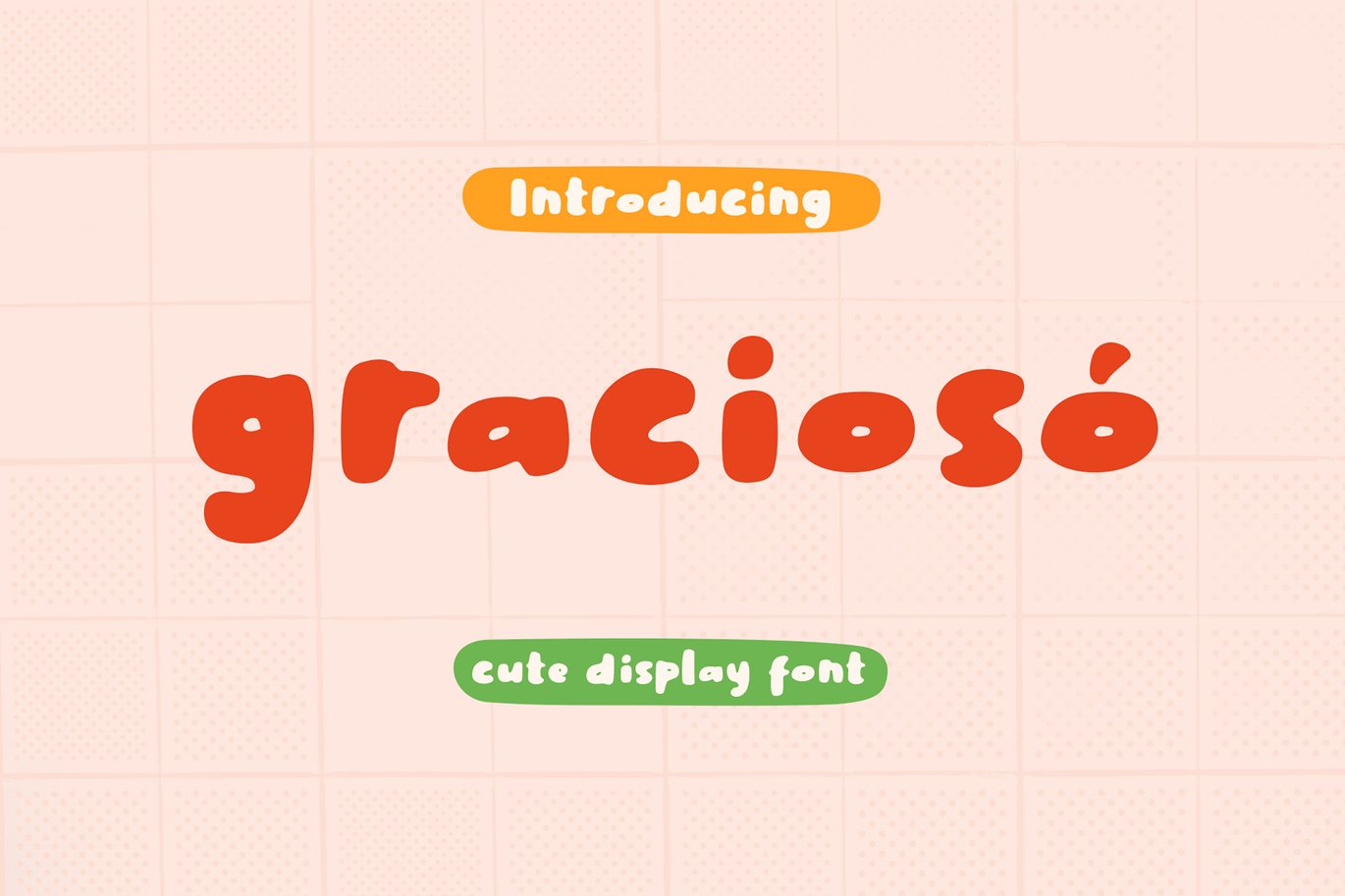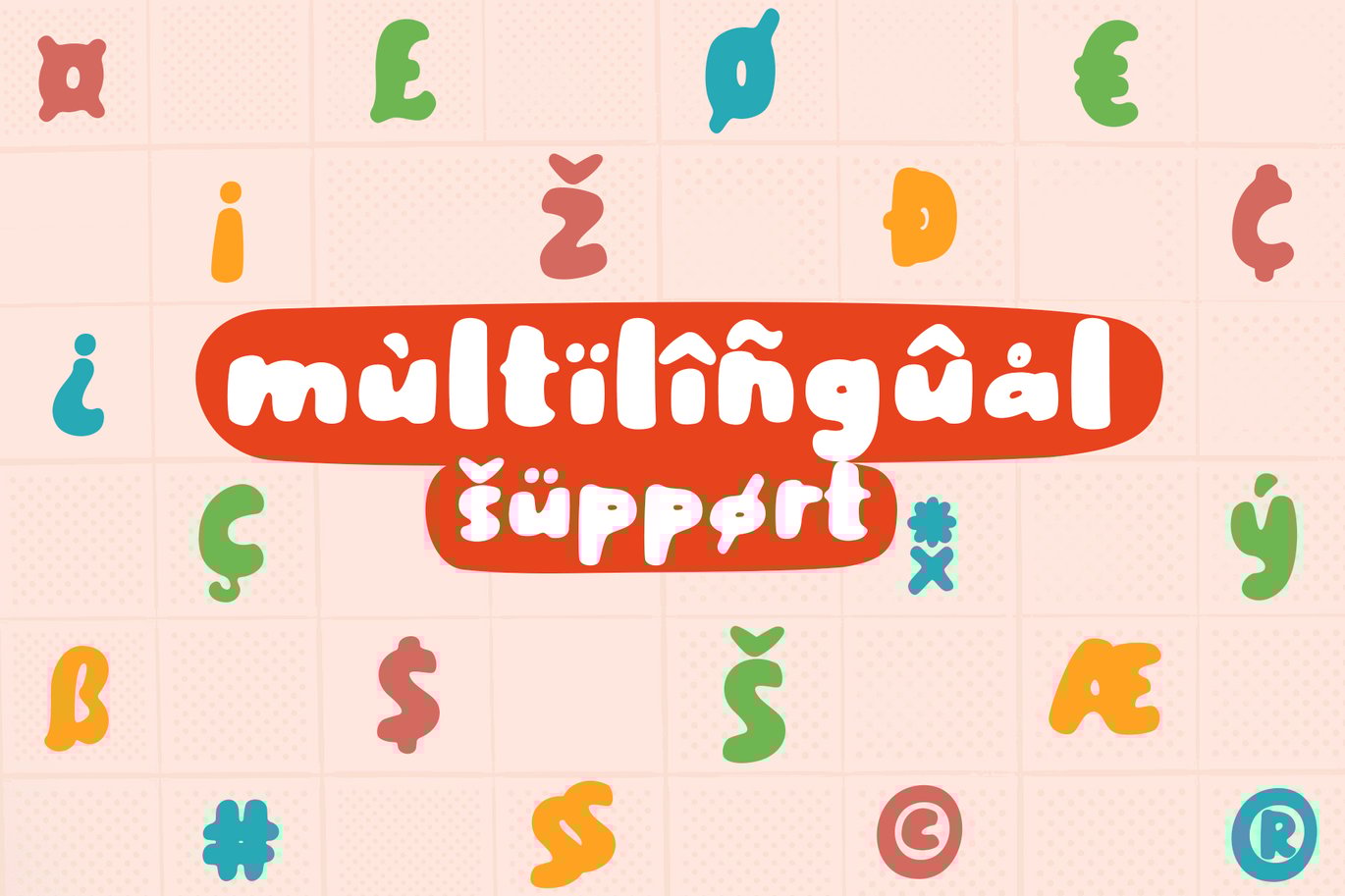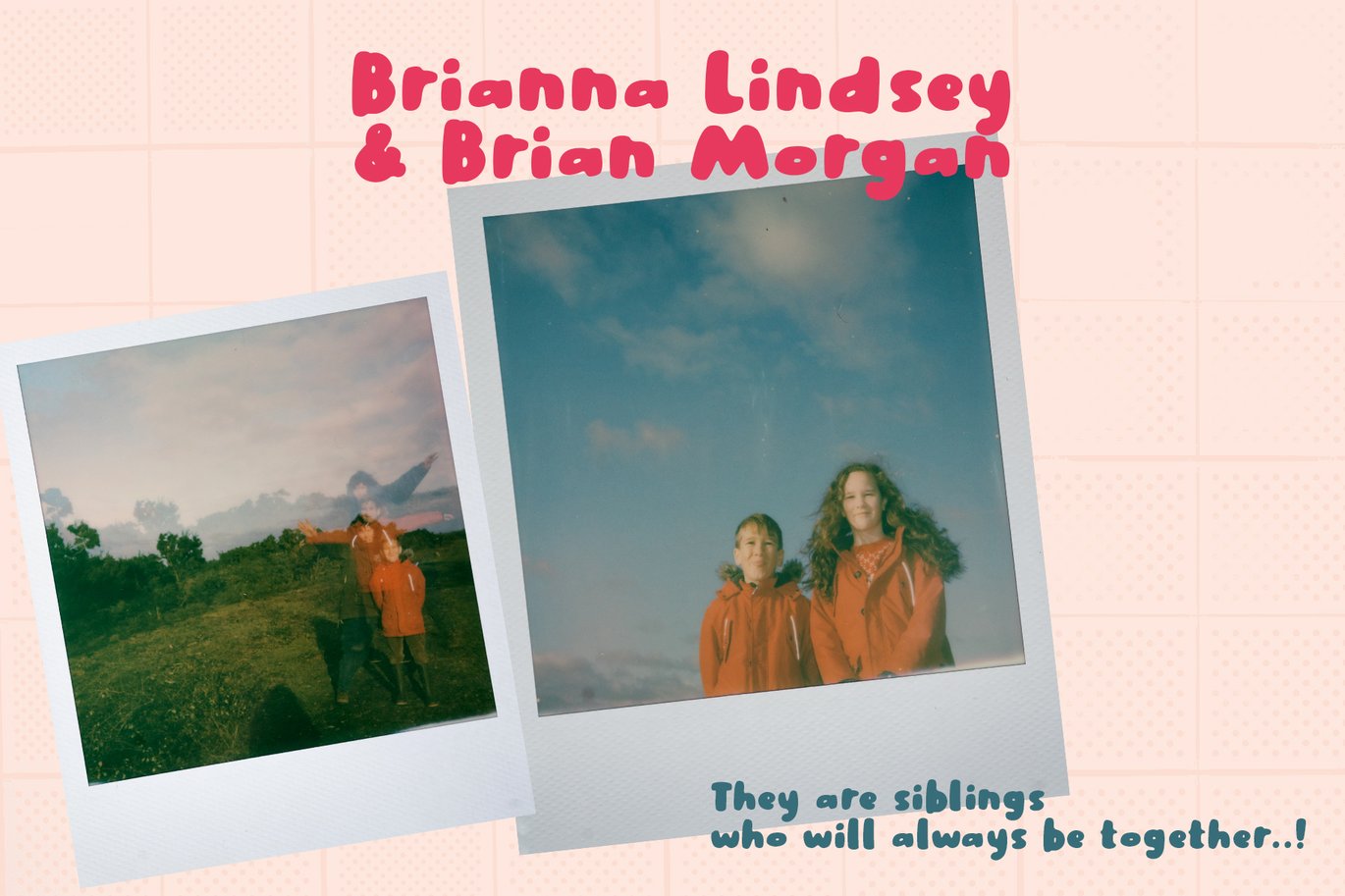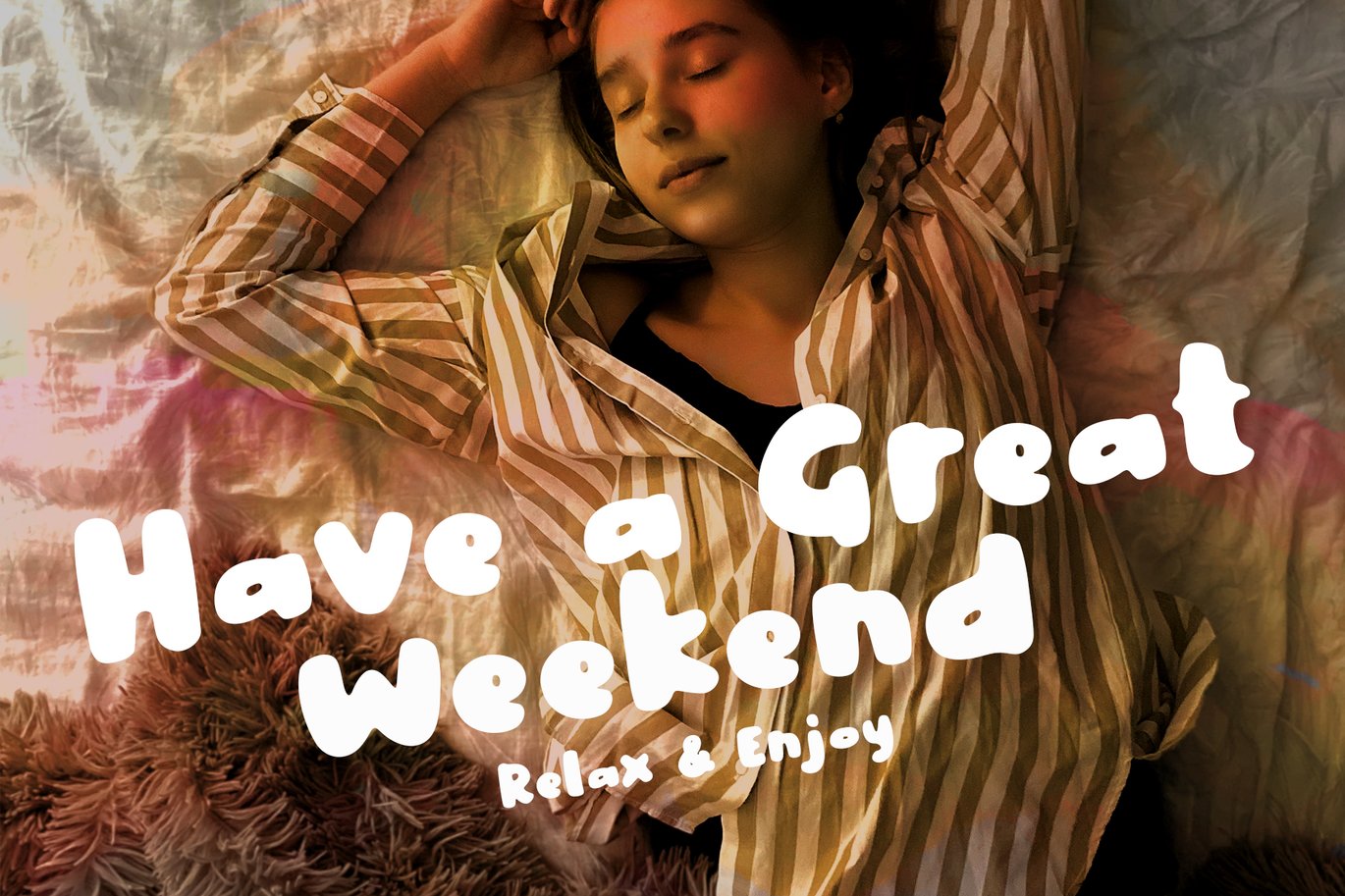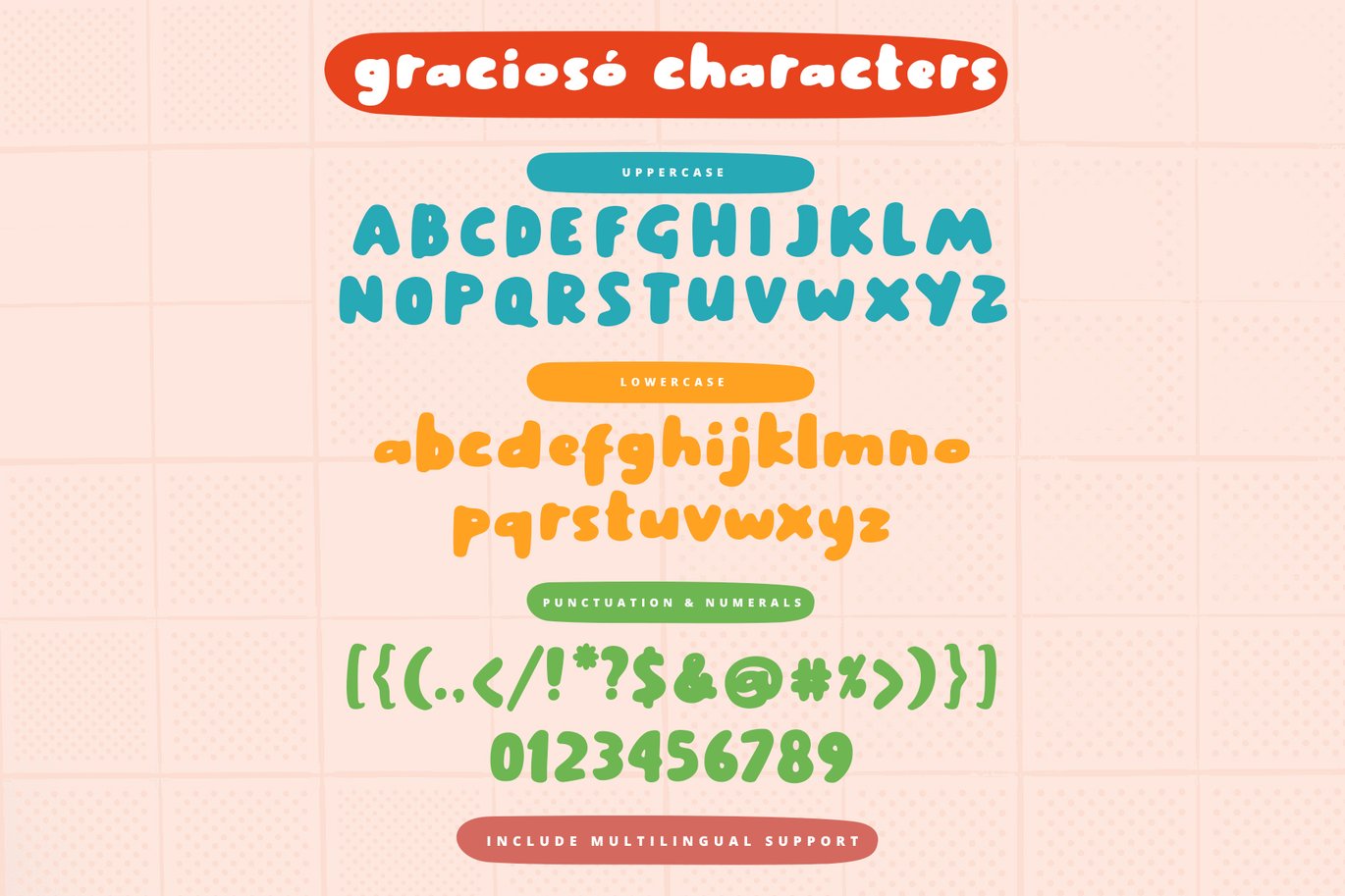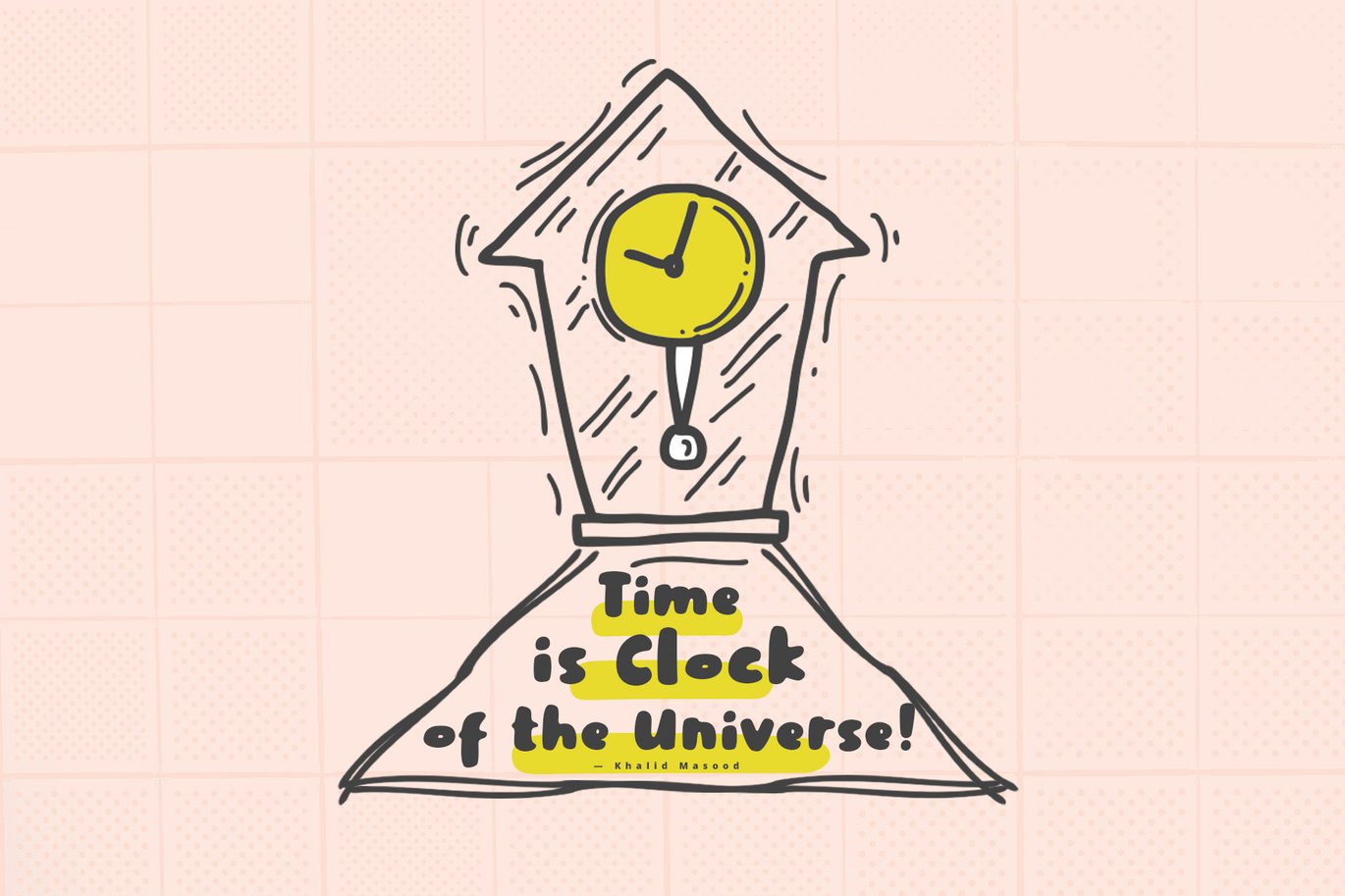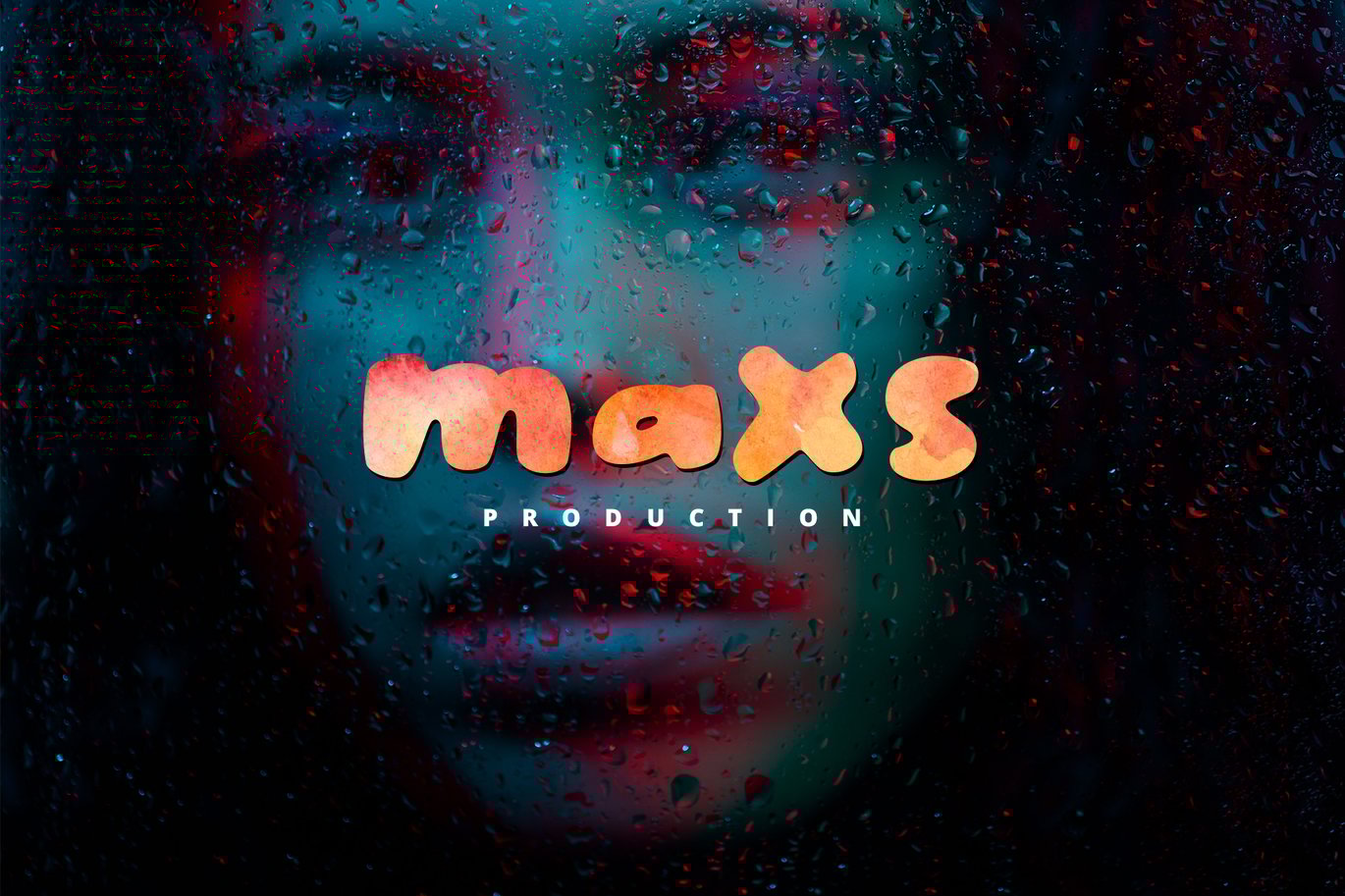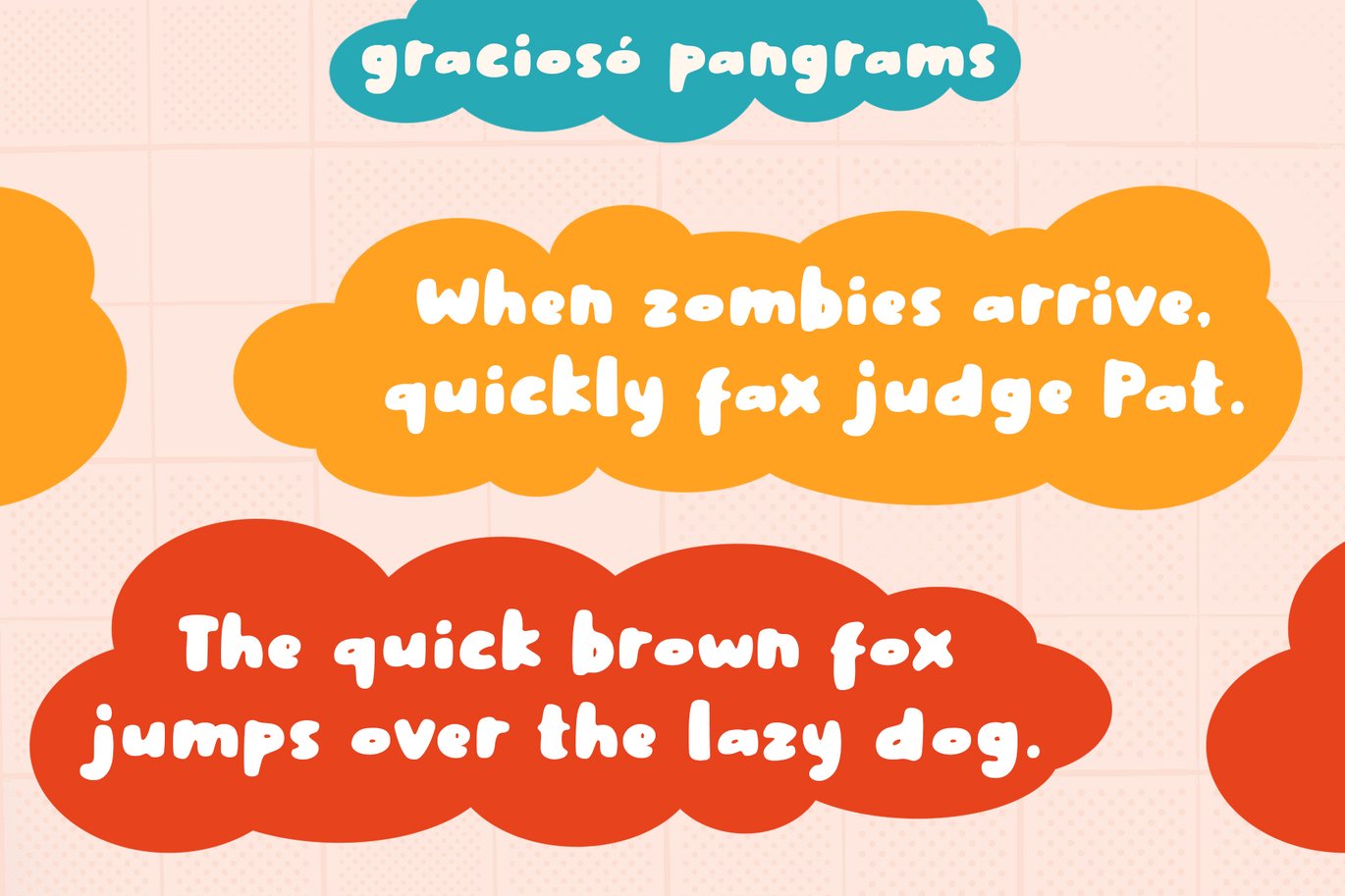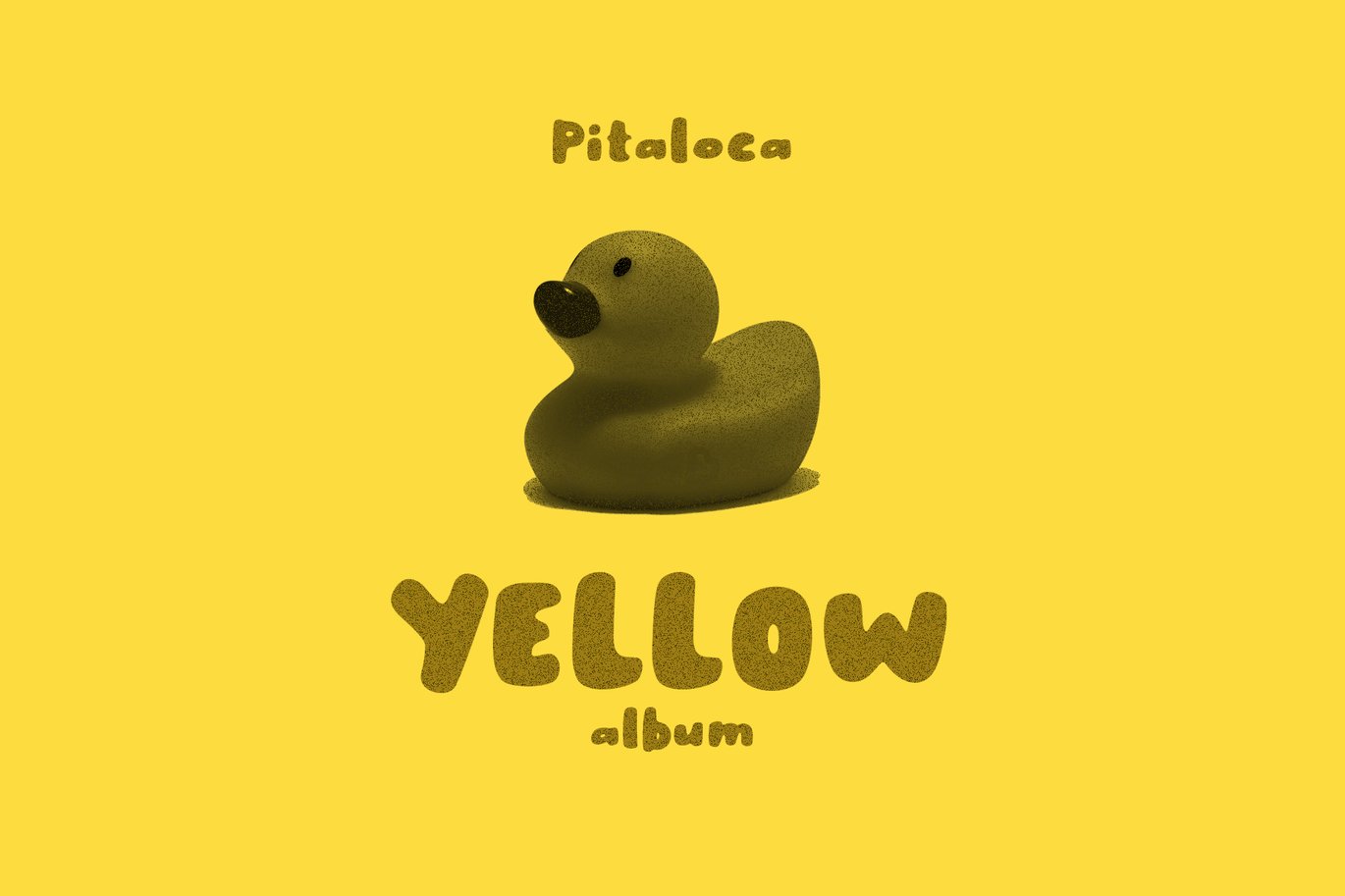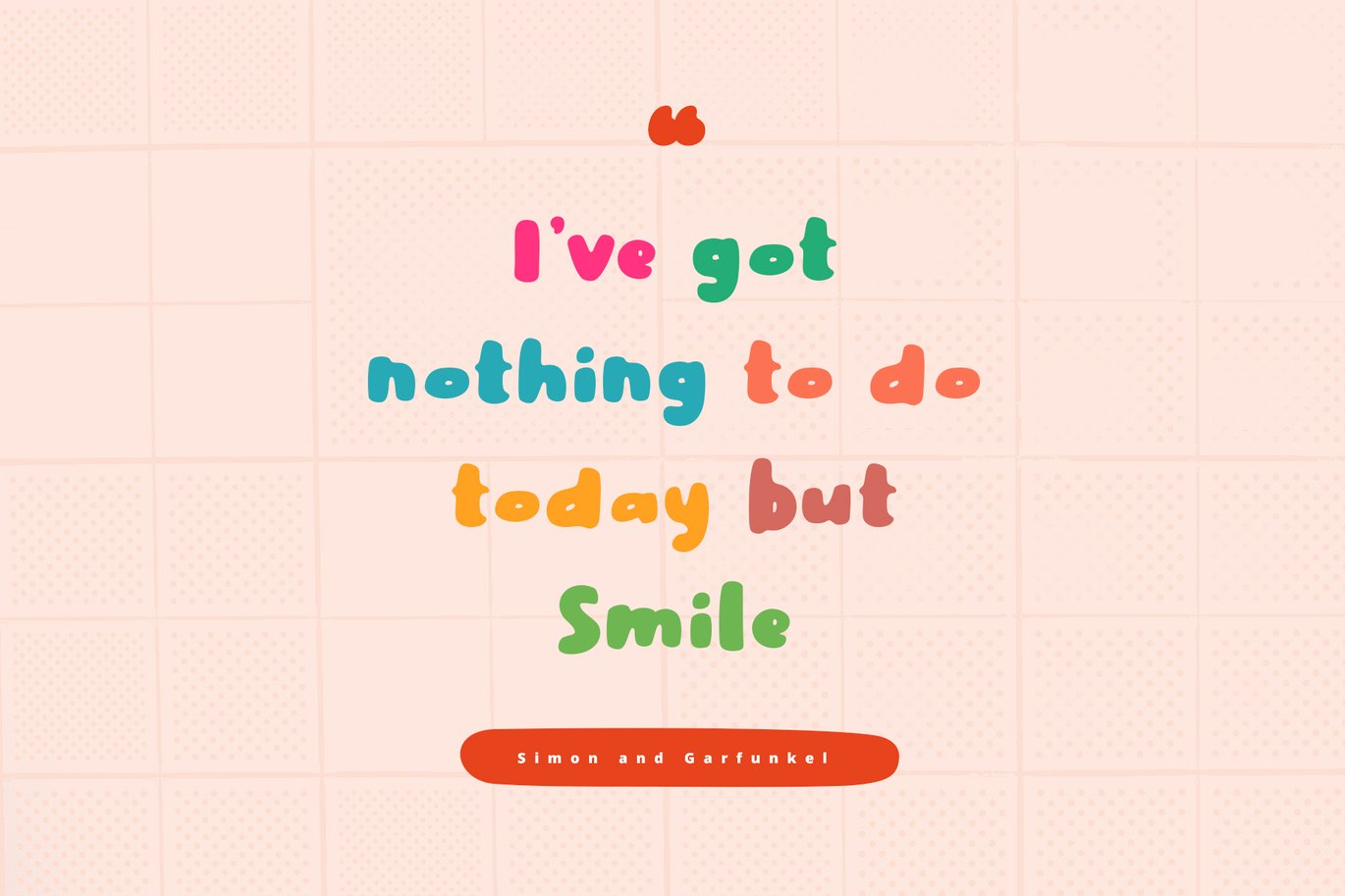
Gracioso Cute Font
Introducing!
Gracioso is a new cute and funny display font. This font adopts a bold, cute, firm, and trendy style. Very suitable to meet your various design needs that are trending now.
You can use this font for your job very easily. Because there are many features in it. Contains the complete set of lower and uppercase letters, punctuation, numbers, web fonts, and multilingual support. This font also includes several ligatures and alternative style Stylistic Set For those of you who have software that is capable of working OpenType (Corel Draw / Photoshop / Illustrator / InDesign).